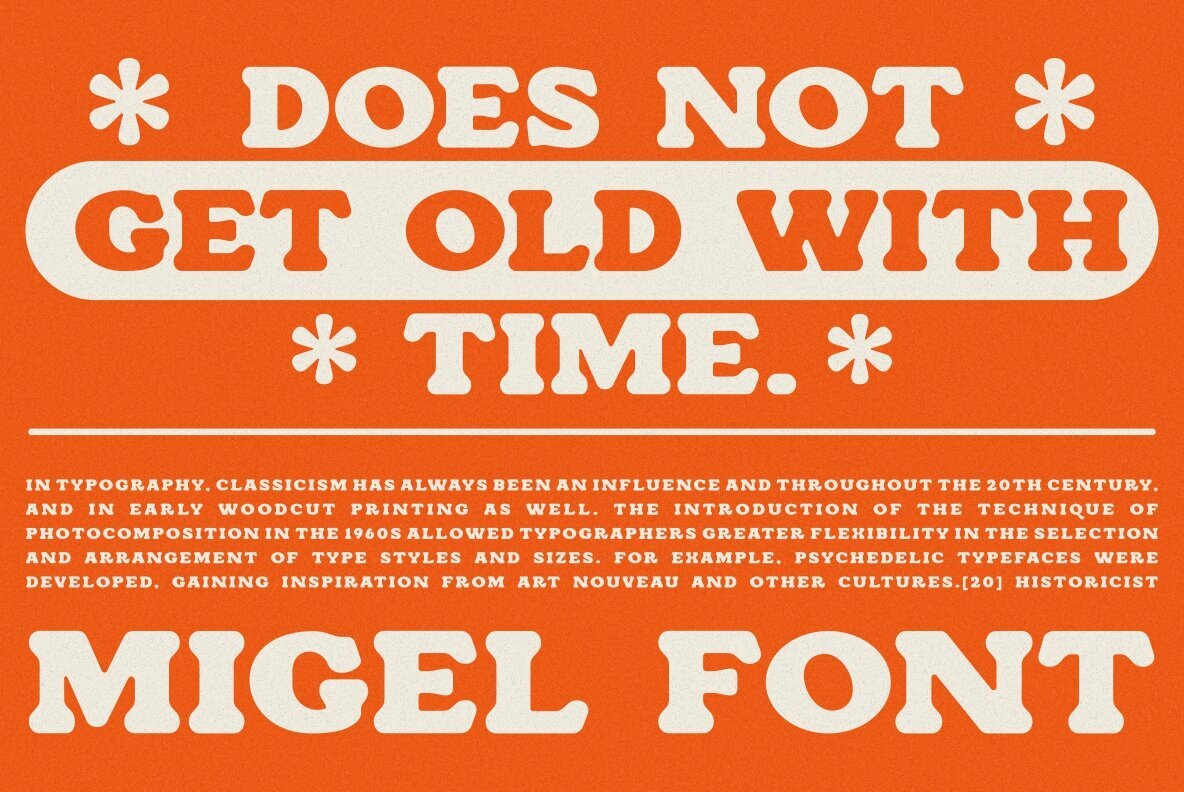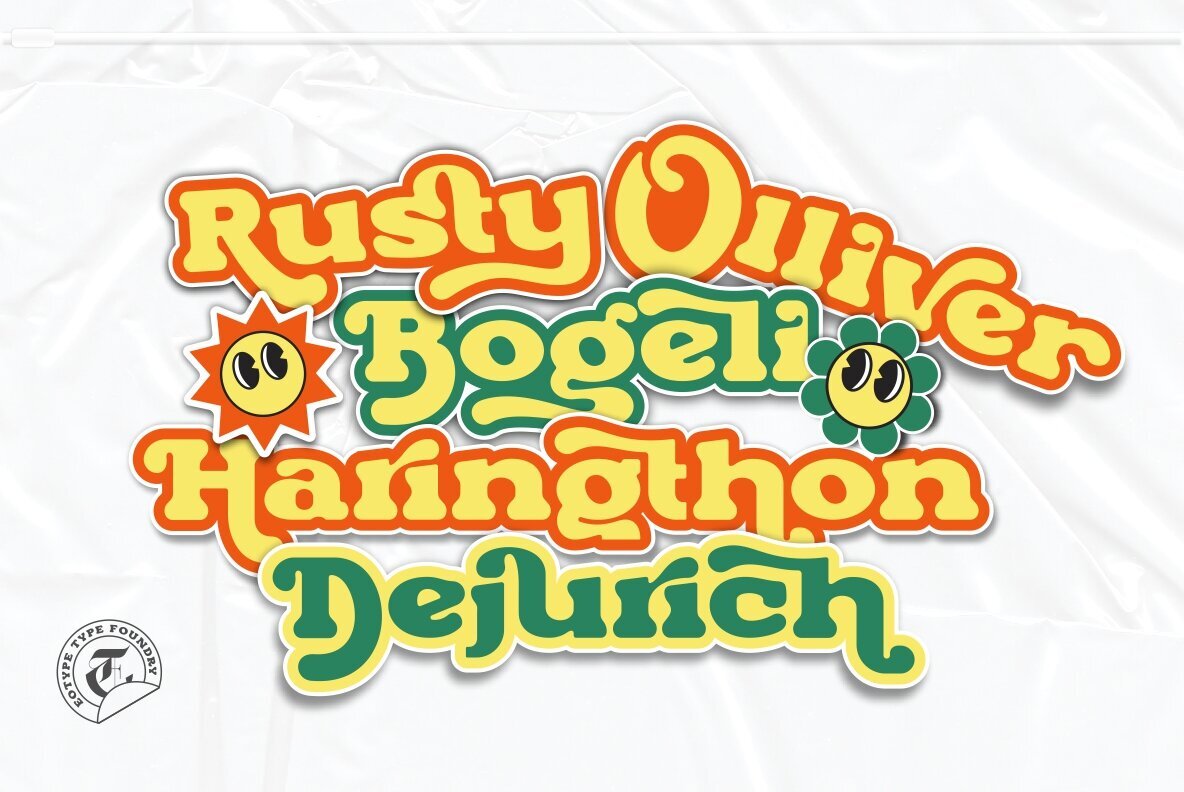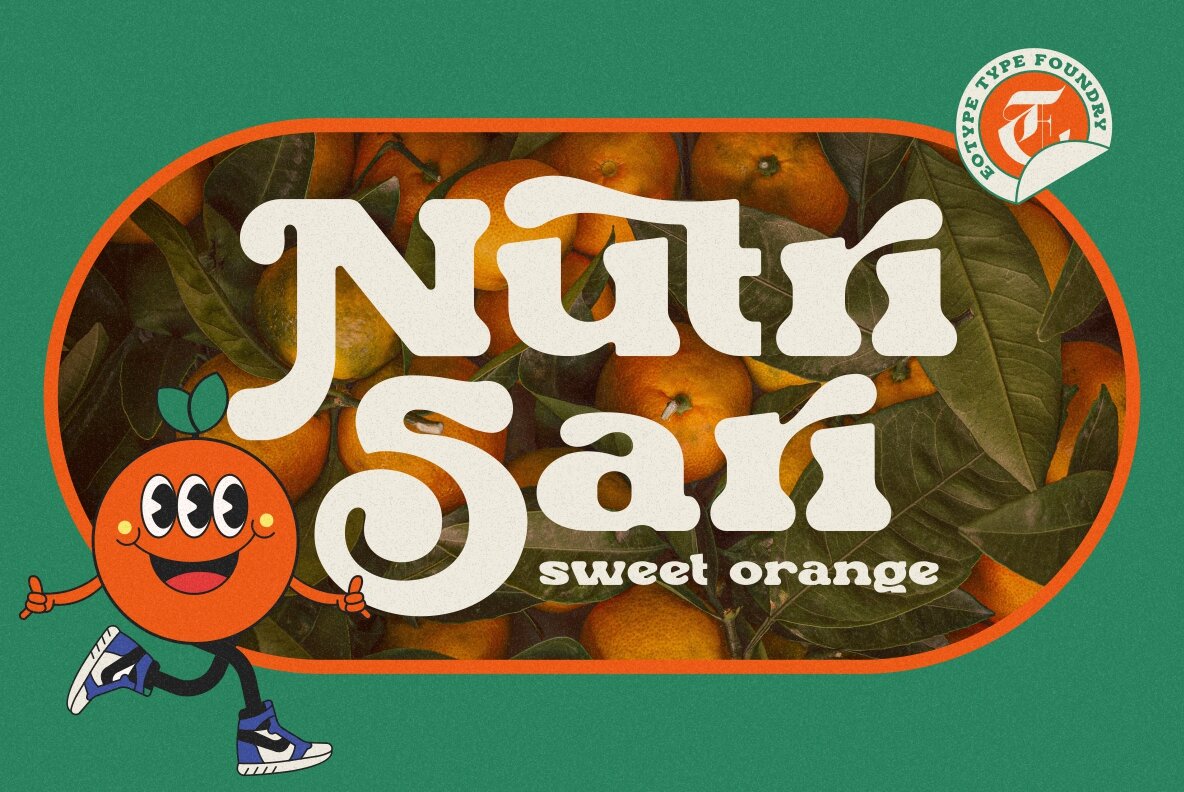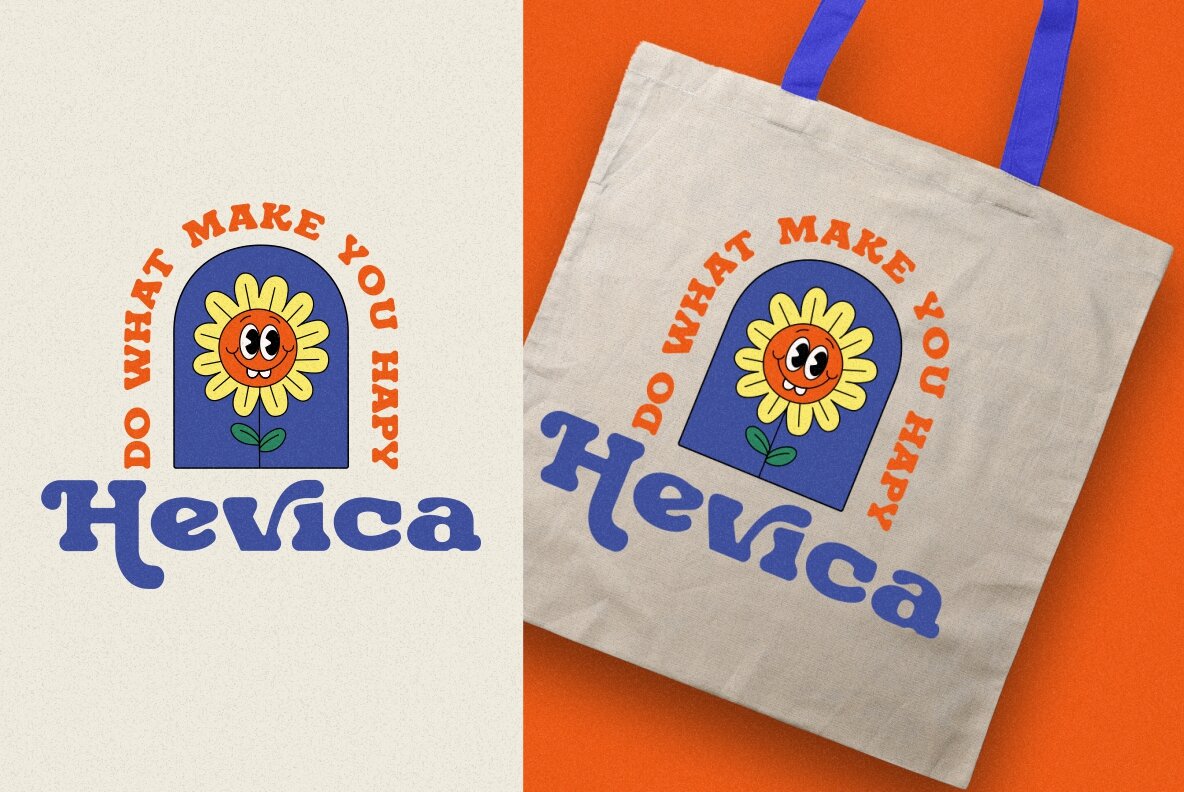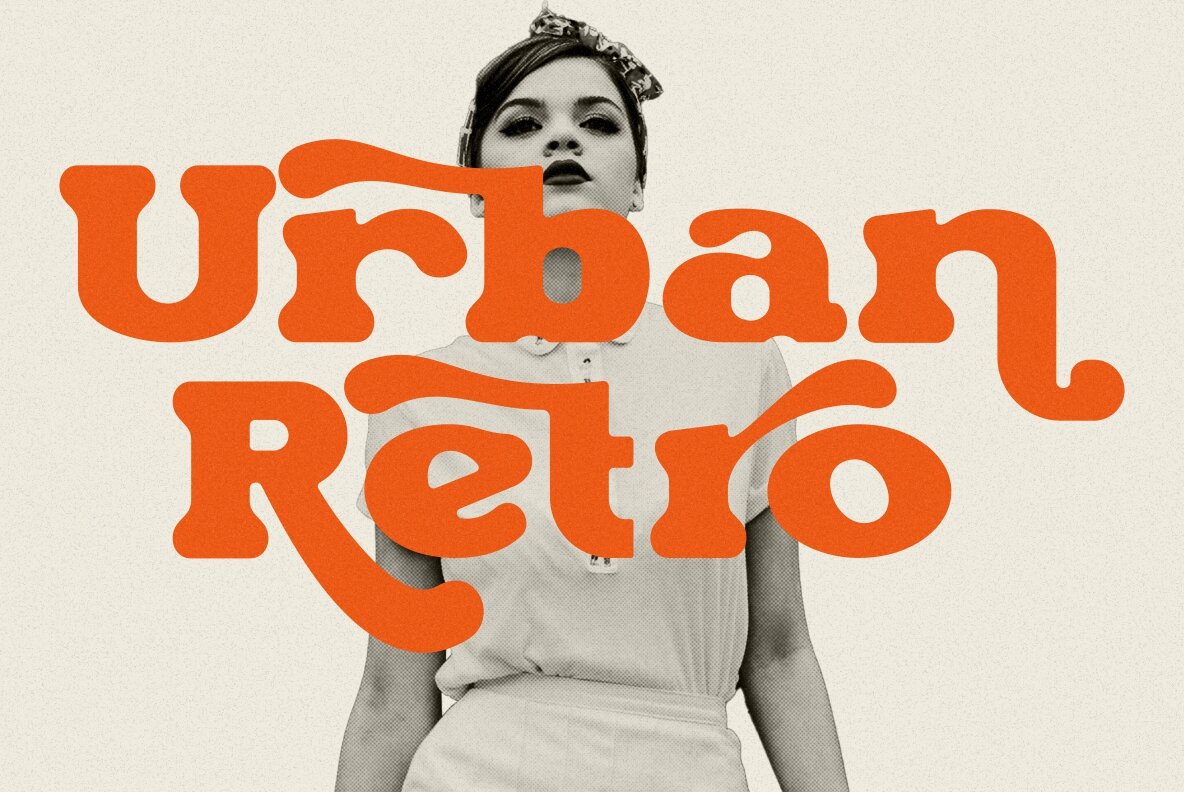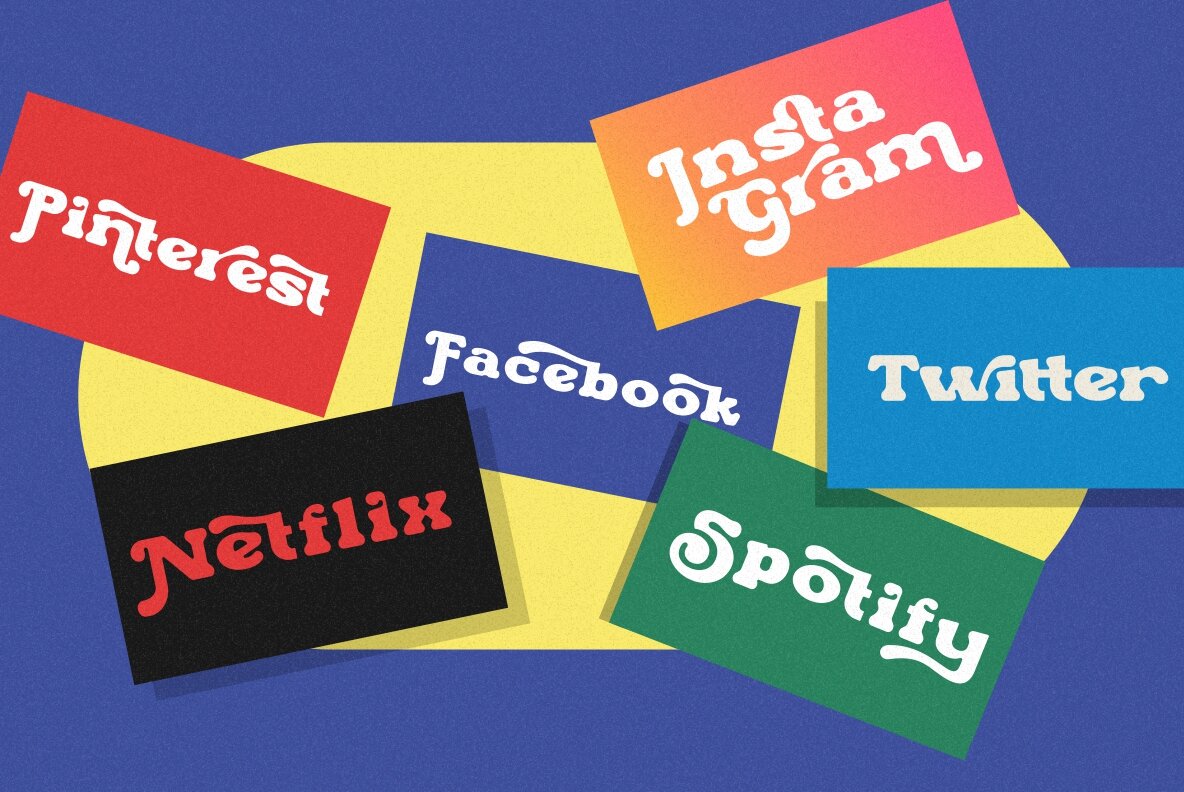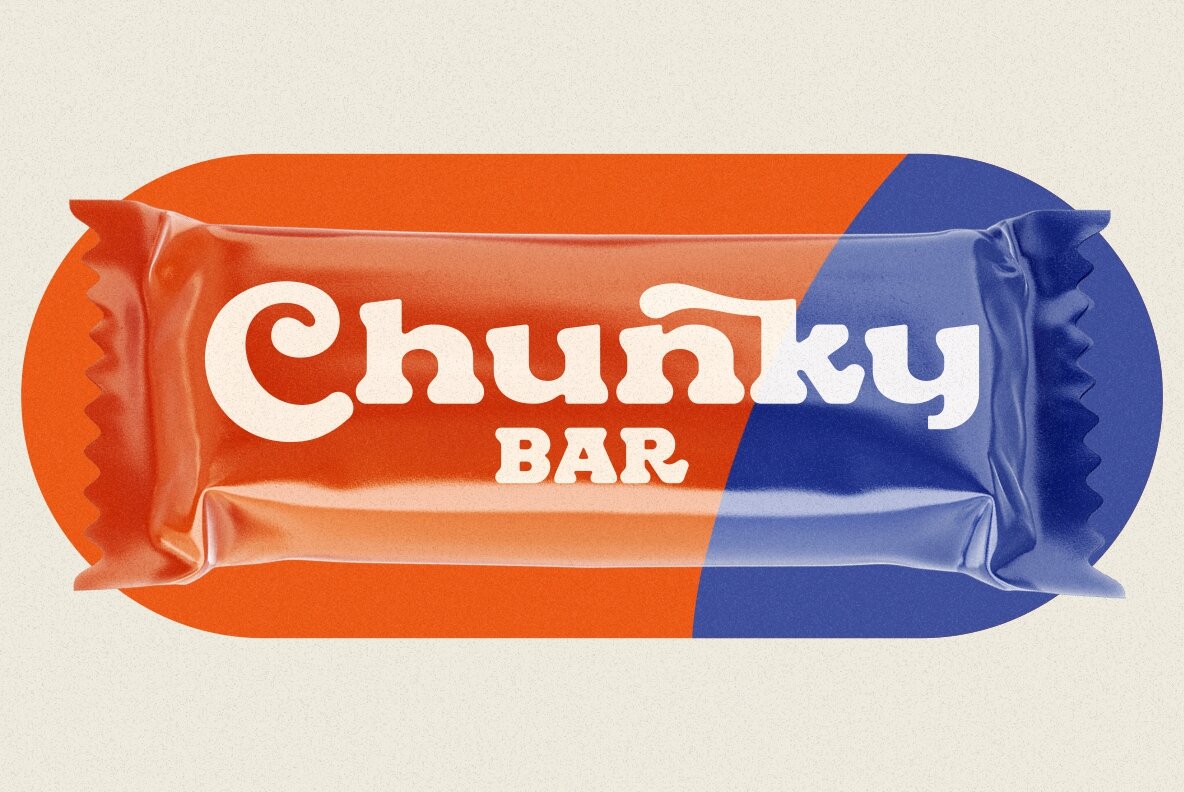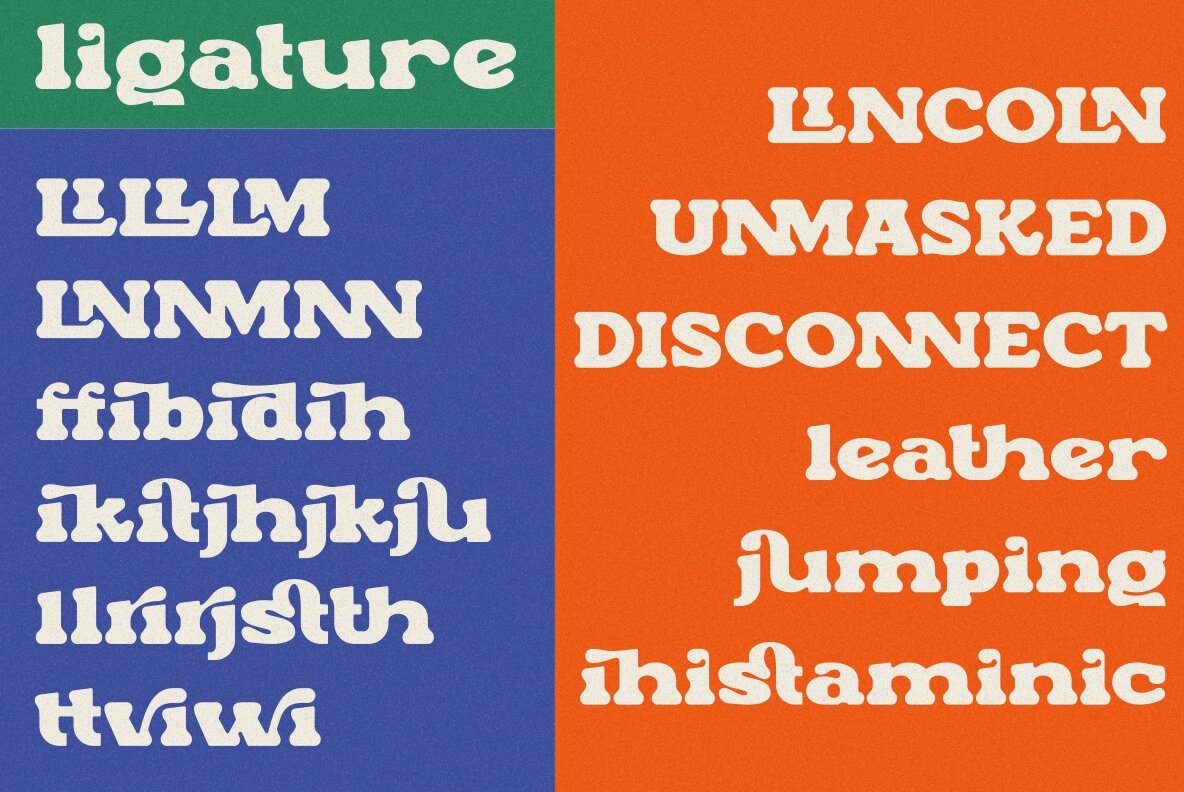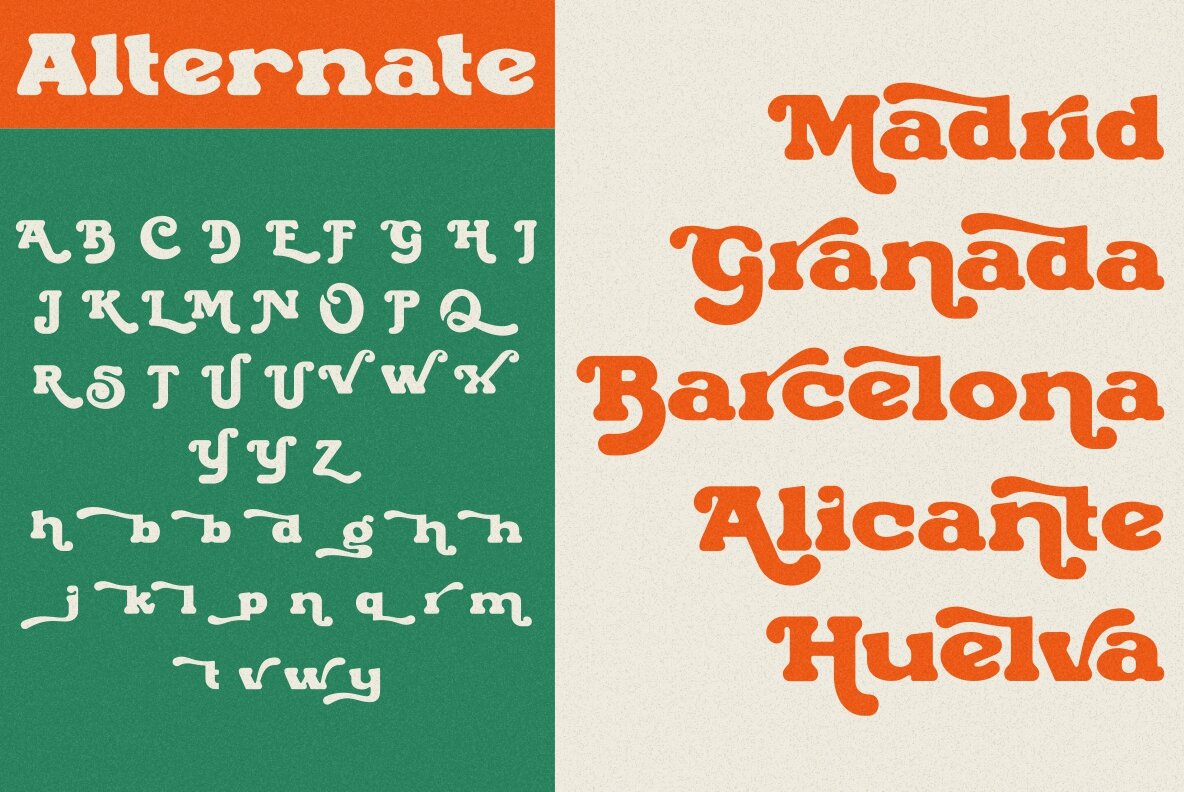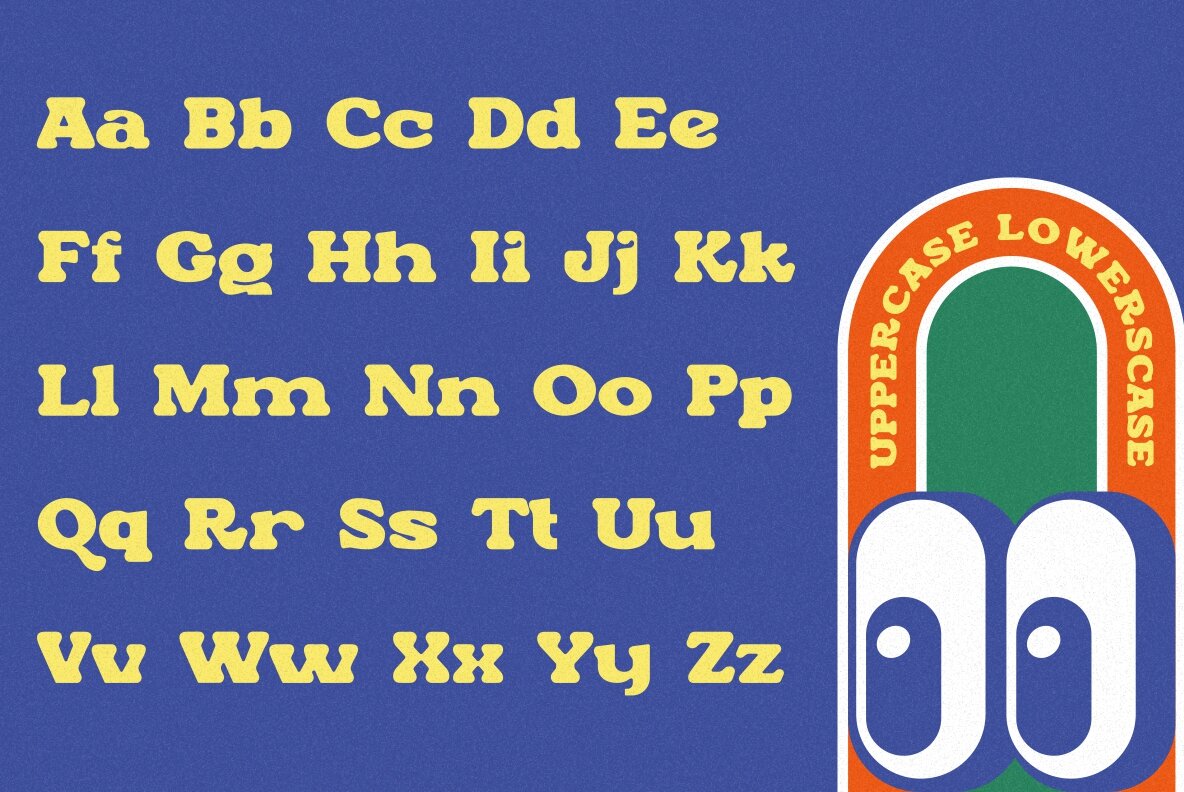
Migel Font
Migel, crafted by eotype Studio, is a display typeface that infuses your designs with a lively and approachable aura. Its thick, rounded edges lend the font a soft character, making it ideal for projects that aim for a playful and welcoming impression. Whether you're exploring retro, vintage, or urban design themes, this typeface adapts seamlessly to a variety of aesthetics. Features: Embrace Migel's unique charm, perfect for channelling a nostalgic yet contemporary vibe in your creative projects.Migel Typeface: Playful Retro Aesthetic